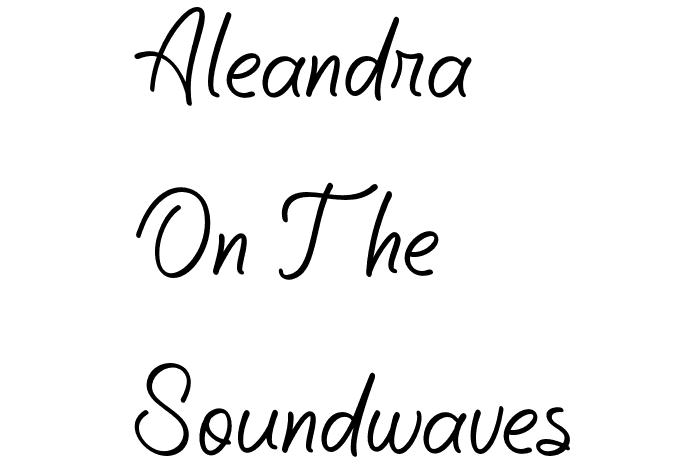
Lizelie Font
Lizelie Font is a sophisticated and pretty script font.It’s an easy way & perfect choice to make your design artwork standout. This font is perfect for ,fashion, brand, magazine, clothes but also cover designs, merchandise, posters, creative posts and more.
Typeface classification Calligraphy,Script